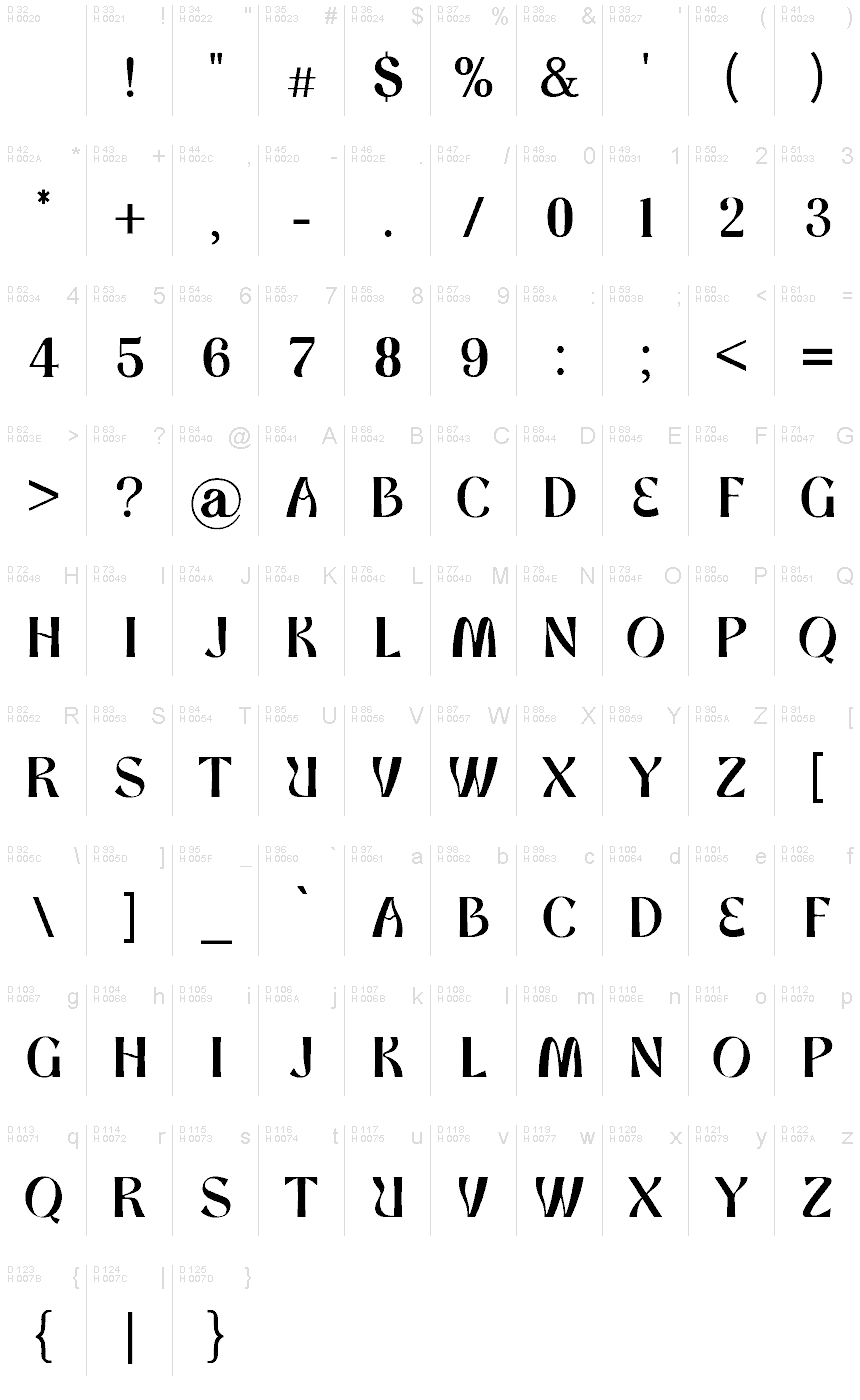
the flame proofer Regular
The Flame Proofer font by UI Creative is an elegant display typeface with beautiful characters and ornaments. The letters are vintage-inspired with a dramatic look that delivers a regal, eye-catching appearance. The connection between the characters, their heights, and the generous spaces help ensure readability despite the impressive artistic flair that each letter holds.
Bring out luxurious notes on projects like posters, titles, headers in magazines/papers/books covers, brochures/flyers. Or try it for video editing – ads, intros/outros. Websites and blogs are also suitable as long as you avoid body text.